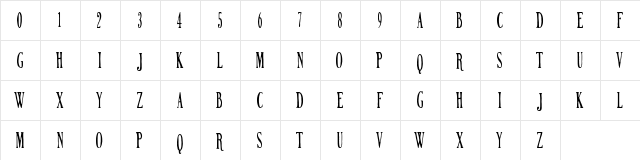
NORTHERN PARLIAMENT Regular
Design Context for NORTHERN PARLIAMENT Typeface
NORTHERN PARLIAMENT is a composed and adaptable typeface that performs quietly and consistently across a wide range of design contexts.
Pro Tip: Use NORTHERN PARLIAMENT in both headline and body roles to test its range before committing to a single application.